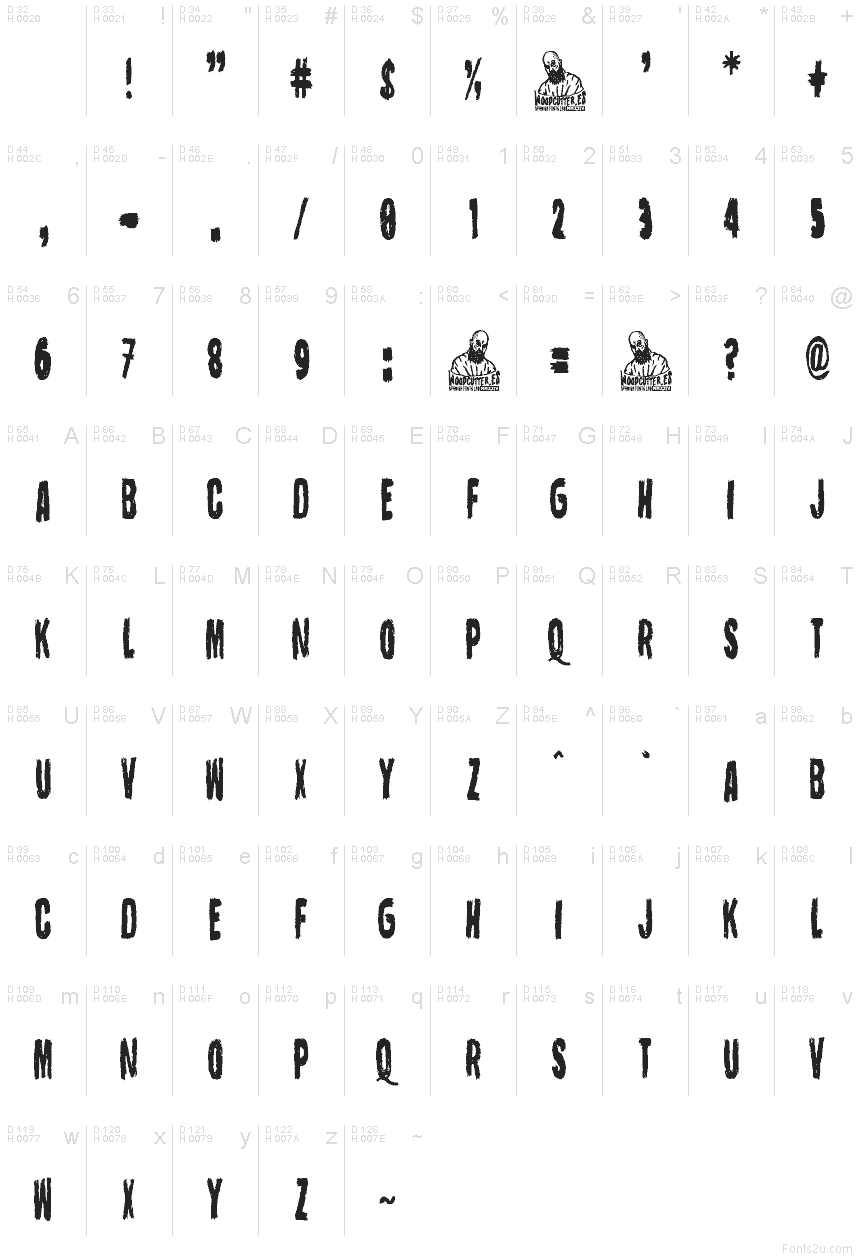
Tu Madre Tuvo La Culpa
Tu Madre Tuvo La Culpa font by Woodcutter is a free trash script typeface. Its letters look scraped from concrete—condensed, heavy, and frayed with inky burrs and splinters. The texture feels wet and gritty at once, with streaks and ragged edges that punch through clean layouts and add instant menace without extra effects.
Using Tu Madre Tuvo La Culpa, you get bold, chaotic energy that shines on horror posters, punk flyers, album covers, streetwear tags, DIY zines, and Halloween packaging. This free font thrives in loud headlines and short bursts; give it generous size and a little breathing room to let the grunge detail pop. Pair with a clean geometric sans in small text to ground the noise and keep the message sharp.